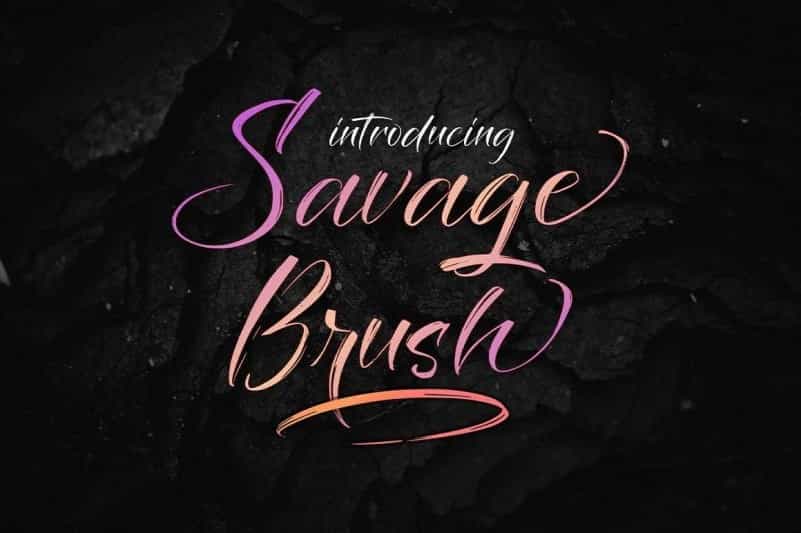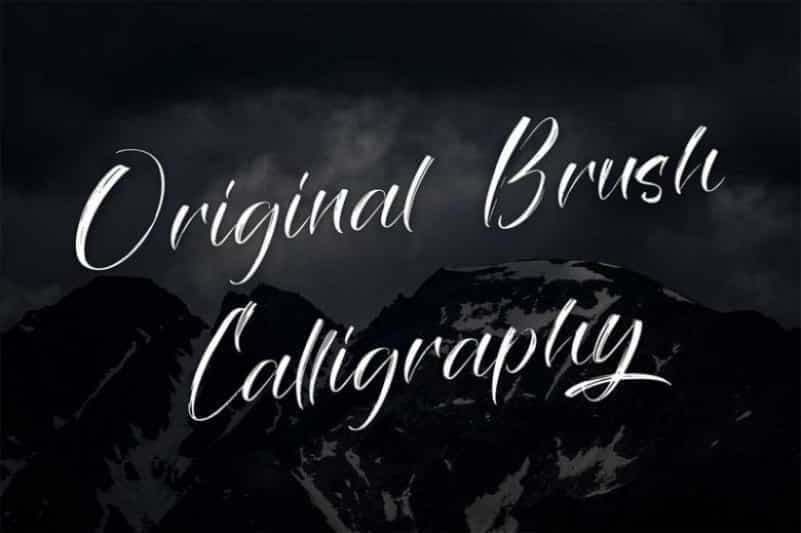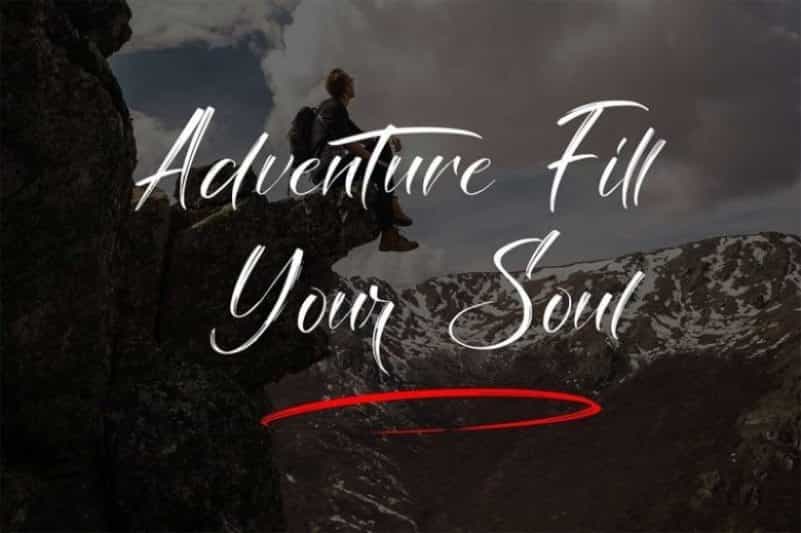
Savage Brush is an impressively versatile and attractive brush script typeface that is hand-brushed with love. Modern method of design, made natural and suitable for use in titles like invitations, clothing and book titles, stationery designs branding, quotes greeting cards, logos packaging designs, T-shirts and posters that are also PUA encoded.